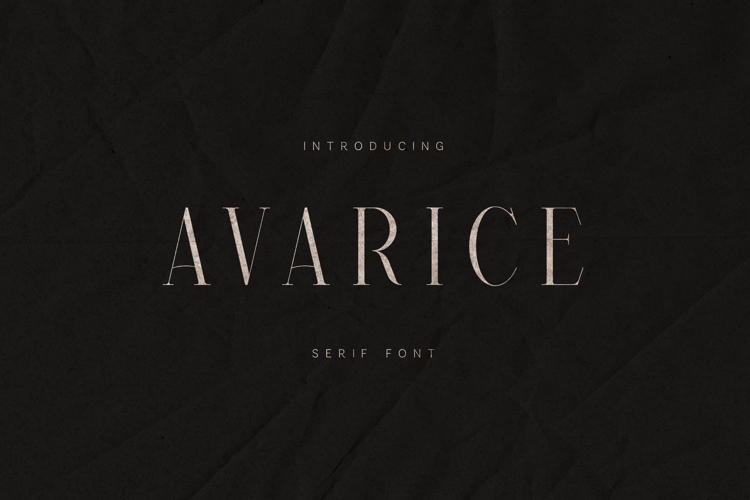
Avarice Modern Elegant Serif Font
Avarice is a refined modern serif font crafted for expressive, high-end typography. Balancing sharp elegance with subtle softness, Avarice brings a quiet confidence to every composition. Its high-contrast strokes, graceful curves, and delicately tapered serifs create a timeless aesthetic that feels both classic and contemporary.
Designed for storytelling and strong visual identity, Avarice shines in editorial layouts, luxury branding, film titles, fashion campaigns, and artistic headlines. The letterforms feel intentional and poised, allowing space, texture, and silence to become part of the design—where noise becomes form and restraint becomes power.
With carefully drawn uppercase and lowercase characters, numerals, and multilingual support, Avarice is built to elevate premium projects while remaining versatile across print and digital use.
Avarice is not loud—it is deliberate. Created for designers who value mood, detail, and lasting impression.